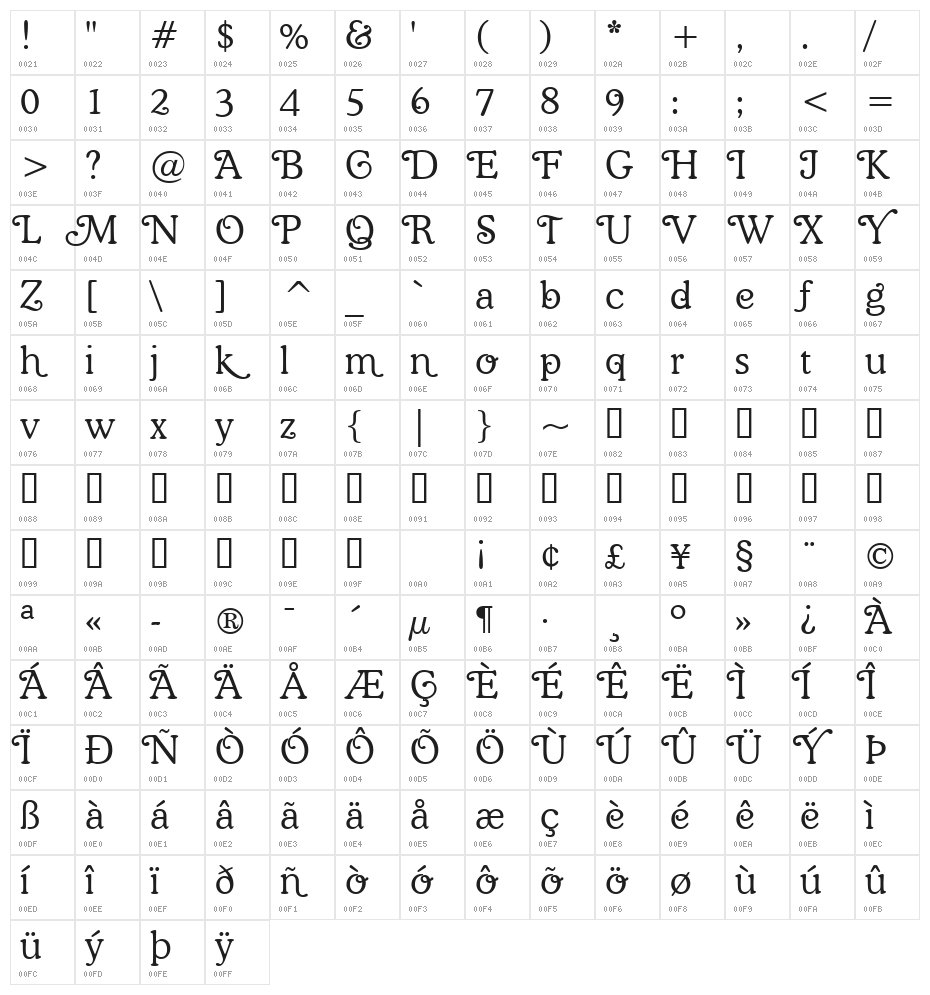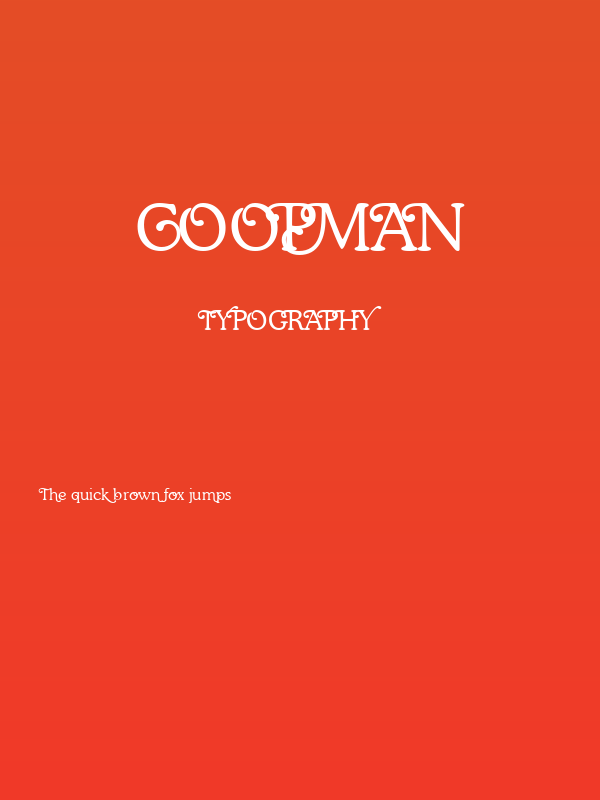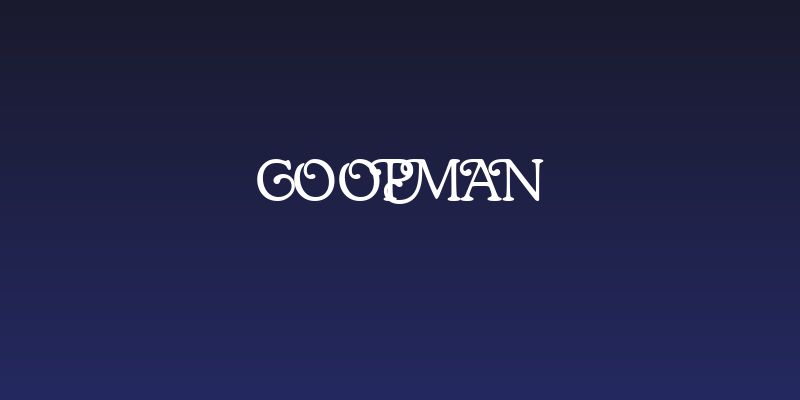
Coopman Font
Coopman Description
This font features a unique blend of classic and decorative elements, characterized by its ornate serifs and playful curves. The uppercase letters exhibit a bold presence with intricate detailing, while the lowercase letters maintain a more subdued yet elegant style. Numbers and special characters follow the same decorative theme, ensuring consistency across all glyphs. The font's overall appearance is both whimsical and sophisticated, making it suitable for projects that require a touch of elegance and creativity.
| Proposed Projects | Ideal for wedding invitations, branding for luxury products, artistic posters, and any project seeking a touch of elegance. |